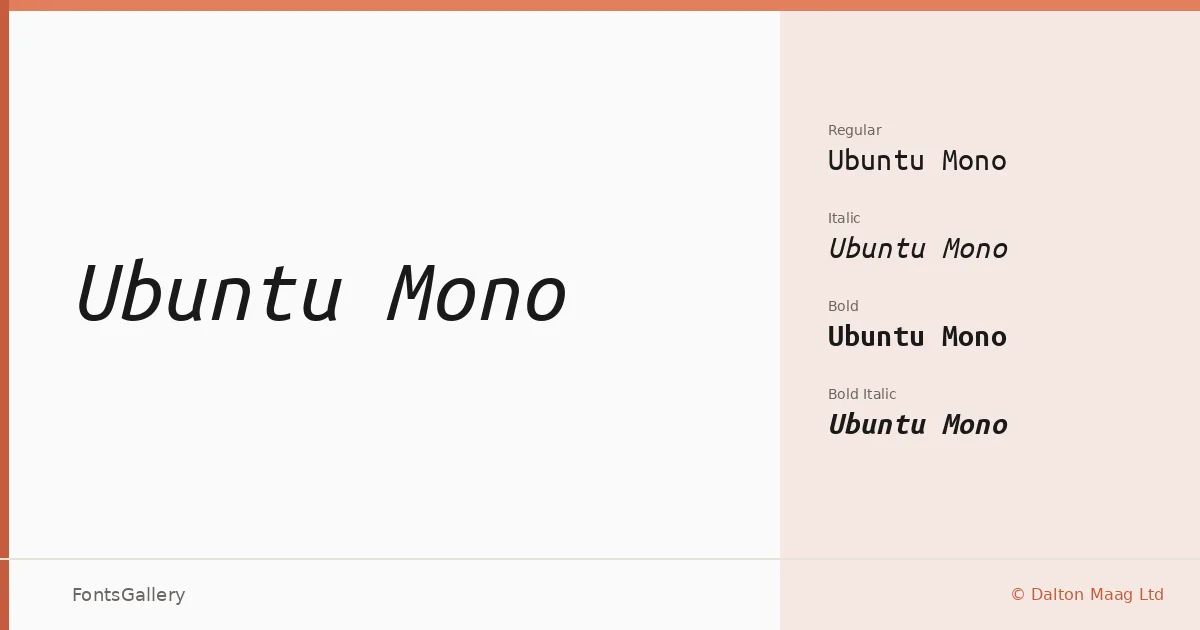
About Ubuntu Mono Font
There is a particular discipline to a well-made monospace: every character must earn its fixed width without feeling cramped or artificially stretched. Dalton Maag Ltd brought that discipline to this family, commissioned by Canonical, producing a typeface where the spacing feels intentional rather than merely mechanical. The letterforms carry a warmth that separates them from colder, purely utilitarian coding faces.
The family sits in the monospace category with a minimal, modern, and professional character — the kind of face that reads as technically precise without being cold. The four cuts — Regular, Italic, Bold, and Bold Italic — give you a complete working set for anything from running code blocks to structured data displays. Delivered in TTF, the forms hold up cleanly at both small interface sizes and larger display settings.
It earns its keep in branding systems, presentations, website headers, and anywhere a business card needs to communicate precision and clarity. Language coverage spans Latin, Latin Extended, Cyrillic, and Greek, making it a practical choice for multilingual projects across those scripts. For pairing, the geometric restraint here sits well alongside Helvetica or Asap for body copy, and creates an interesting tension when set against the editorial richness of Canela or the character of Etna and AQUA.